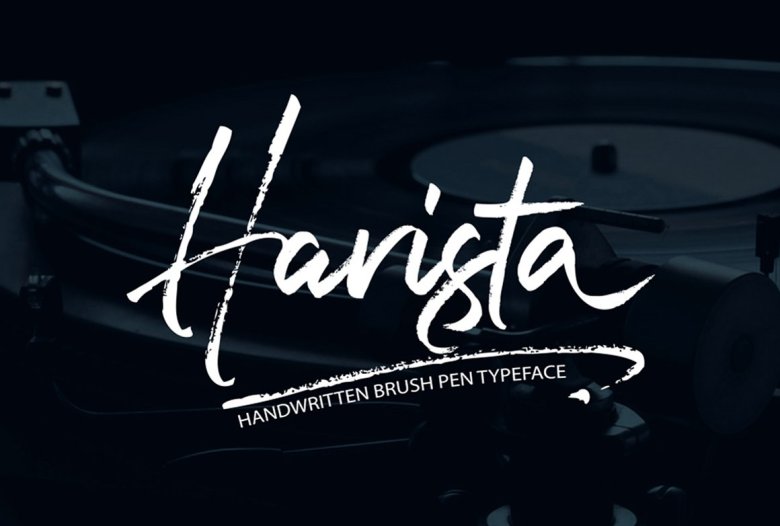
Harista Brush Font
Harista Font
Harista Brush Font is a beautiful calligraphy font created by joelmaker with Brush Pen. It’s perfect for adding a graceful feel to any design project. kind of a signature style, perfect for branding projects, packaging products – business cards – logos and others
Harista Script It contains a full set of lowercase & uppercase, a large range of punctuation, numerals, and multilingual support. The font also contains several ligatures, Initial Forms, stylistic alternates, Terminal Form (FINA) & Swash, for you who have opentype capable software (e.g. Photoshop/Illustrator, Corel Draw).